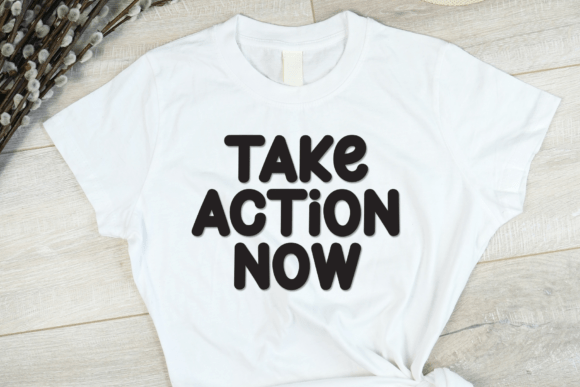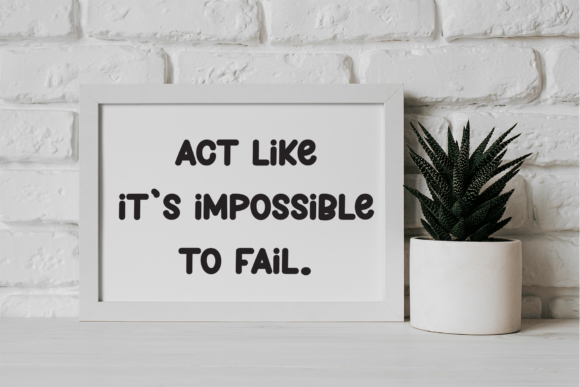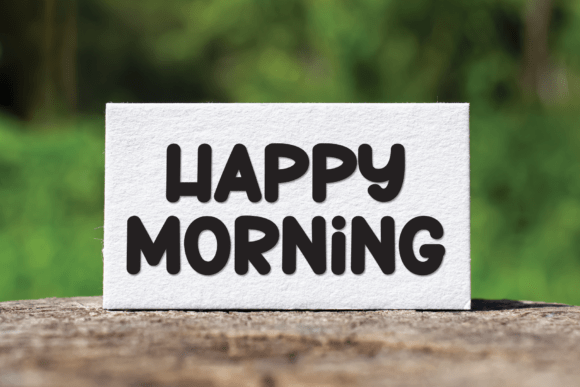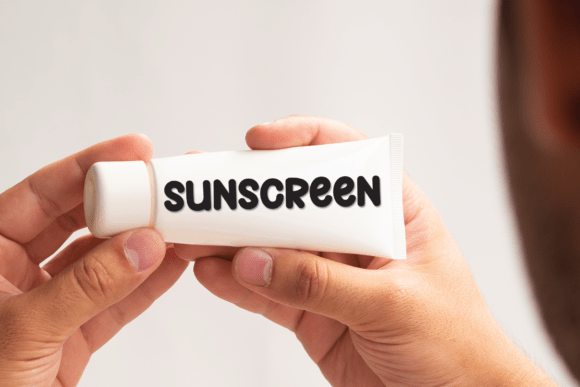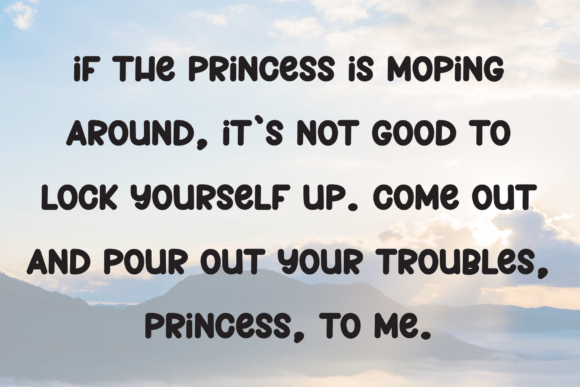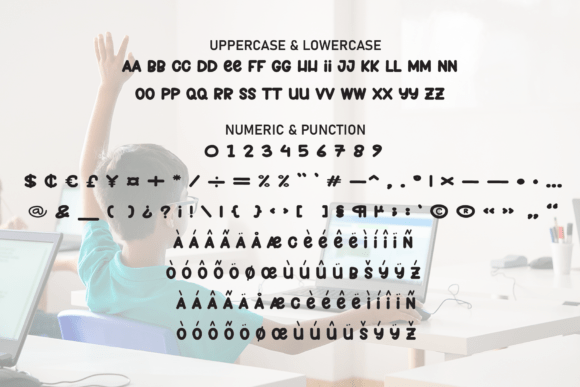
Discover the Joy of Handwritten Charm with Digital School Font
As a designer, there’s nothing quite like the thrill of brainstorming a new project. You’re sitting at your desk, surrounded by scraps of paper, coffee cups, and a flurry of ideas swirling in your head. And then, it hits you – the perfect font to bring your concept to life. For many of us, the handwritten display font is the ultimate go-to for adding a touch of warmth and personality to our designs.
Enter the Digital School Font, a treasure trove of delightful fonts that cater to designers of all levels. The ‘Amiable’ font, in particular, stands out for its exceptional charisma and whimsical sophistication. Whether you’re crafting a wedding invitation or designing a heartwarming card, this font is sure to inject a cheerful spritz of fun into your design endeavors.
- Unique Characteristics: Digital School Font features a modern and playful design, with a focus on legibility and readability in digital environments. The font includes a range of unique letterforms and symbols that are optimized for use in educational settings.
Digital School Font Review
I recently had the chance to work with the Digital School Font, and here’s my honest review:
- Legibility: The font is highly legible, even at smaller font sizes, making it perfect for digital use.
- Accessibility: The font is available in a range of weights and styles, making it easy to use for people with visual impairments.
- Consistency: The font’s design is consistent across different sizes and styles, making it easy to apply to various design projects.
- Lack of Expressiveness: The font’s design is a bit too neutral and doesn’t convey much emotion or personality.
- Not Ideal for Creative Projects: While the font is great for digital use, it may not be the best choice for creative projects that require a more expressive or unique font.
Overall, I think the Digital School Font is a solid choice for digital use, but it may not be the best option for creative projects or commercial use. While it’s not the most expressive font, it’s highly legible and accessible, making it a great choice for educational or corporate materials.
Tips for Getting the Most Out of the Digital School Font
Use the Digital School Font for educational materials, such as lesson plans, worksheets, and presentations.
Experiment with different font sizes and styles to create visual interest and hierarchy in your designs.
Combine the Digital School Font with other fonts and design elements to create a cohesive and engaging visual identity.
The Digital School Font is commonly used for:
Education and learning materials
Corporate branding and marketing materials
Online courses and tutorials
Alternatives to Digital School Font
Open Sans is a clean and modern sans-serif font suitable for digital products, including websites and mobile applications. It is highly legible and works well in both large and small text sizes.
Compared to Digital School Font, Open Sans is more versatile and has a larger character set, making it a popular choice among designers. However, it may not have the same nostalgic feel as Digital School Font.